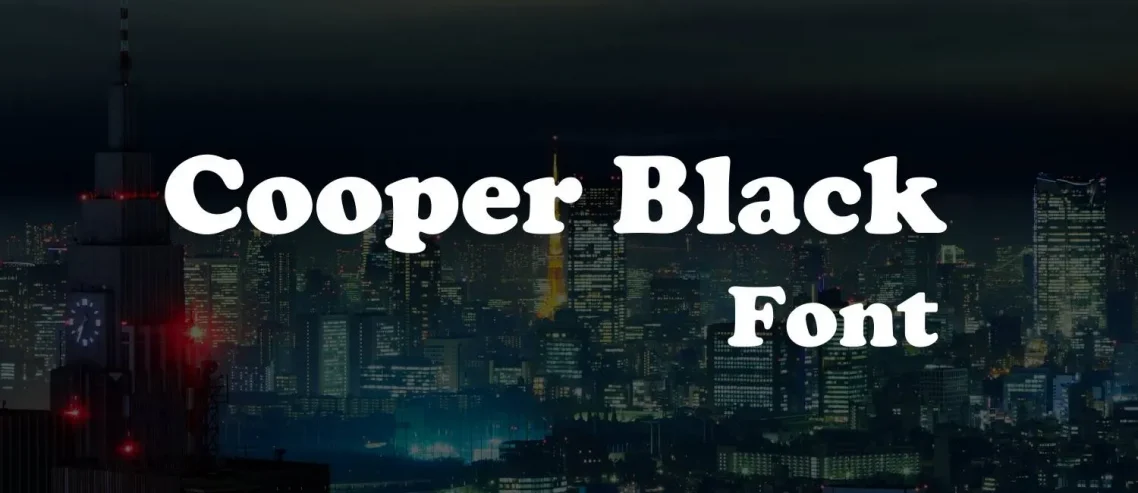
Cooper Black Font is a serif typeface. The font’s design takes inspiration from the Art Deco movement, featuring thick strokes and round shapes. It is a favored choice for branding, advertising, movie posters, and book covers. Recognizable brands like Coca-Cola, Pepsi, and McDonald’s have utilized this iconic font.
Cooper Black Font is available in many different styles. The most common styles are Regular, Bold, and Italic. This Font can be downloaded for free from many websites. This font was designed by Oswald Bruce Cooper in 1921.
View of Cooper Black Font
Cooper Black Font Info
| Name | Cooper Black Font |
| Designer | Oswald Bruce Cooper |
| Style | Serif |